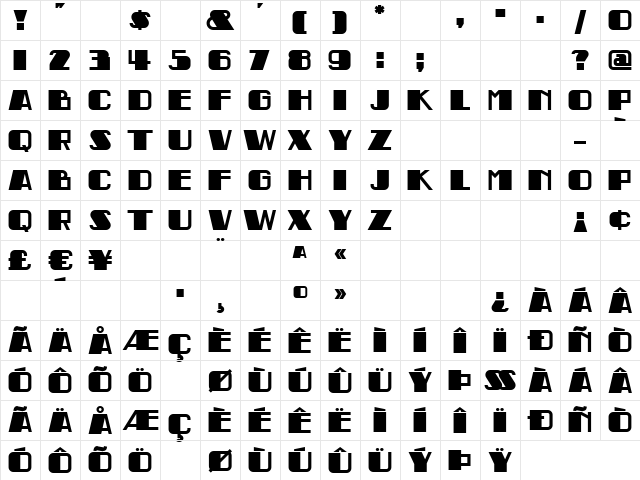
IndochineNF Regular
Foundry: Nick's Fonts
Designer: Nick Curtis
Design Context for IndochineNF
IndochineNF is a composed and adaptable typeface that performs quietly and consistently across a wide range of design contexts.